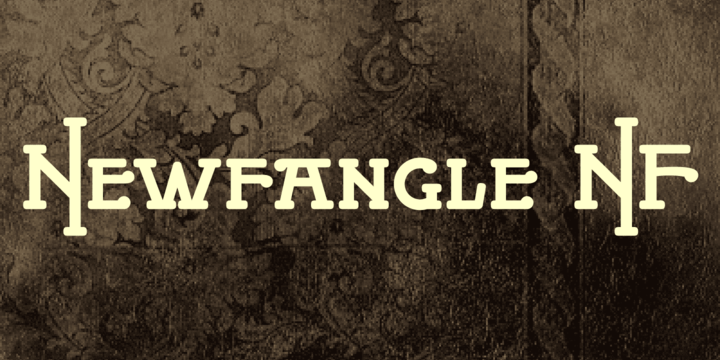
Newfangle NF
The 1892 MacKellar, Smiths & Jordan specimen book featured this jaunty little face, designed by profilic in-house designer Herman Ihlenburg. Happy, hoppy fun. Both flavors of this font feature the 1252 Latin, 1250 Central European, 1254 Turkish and 1257 Baltic character sets.